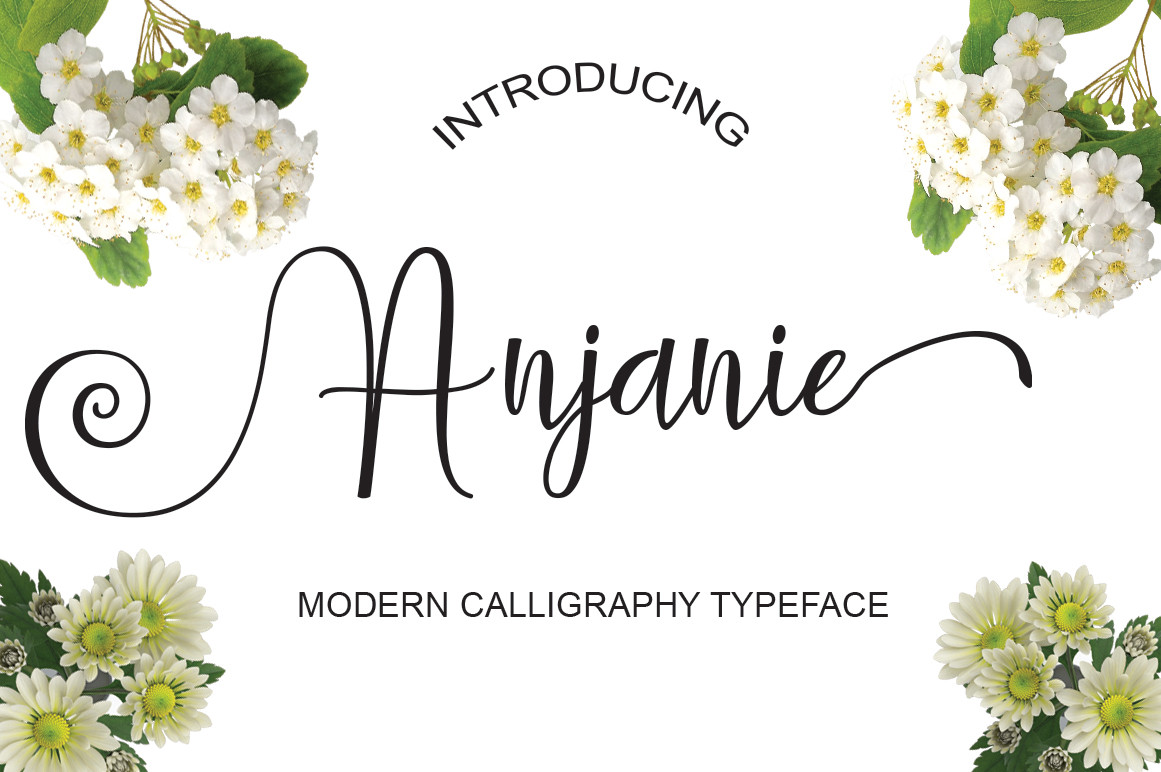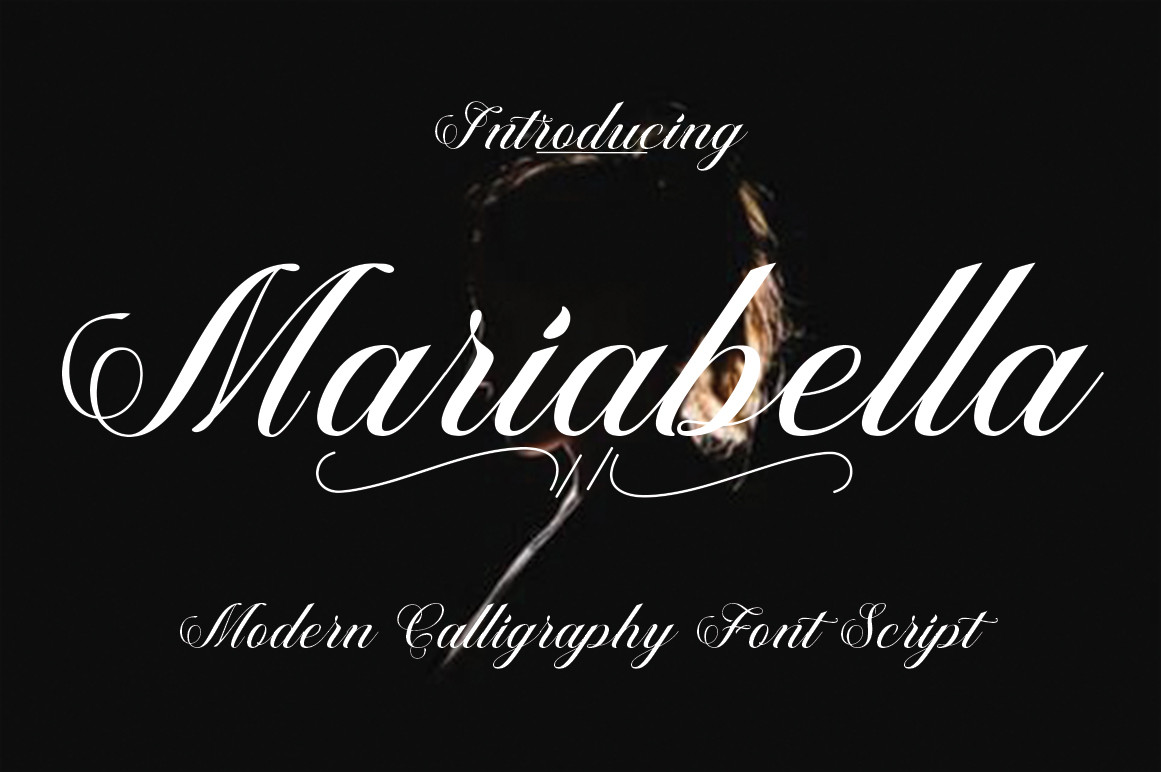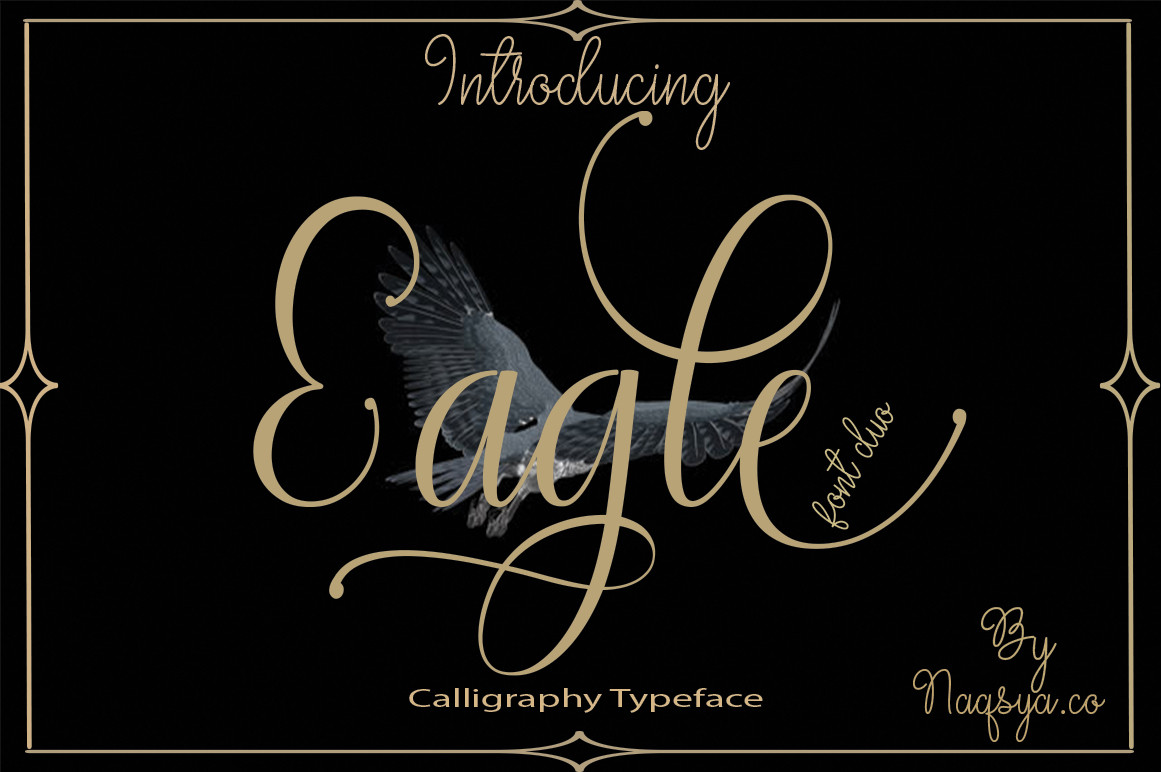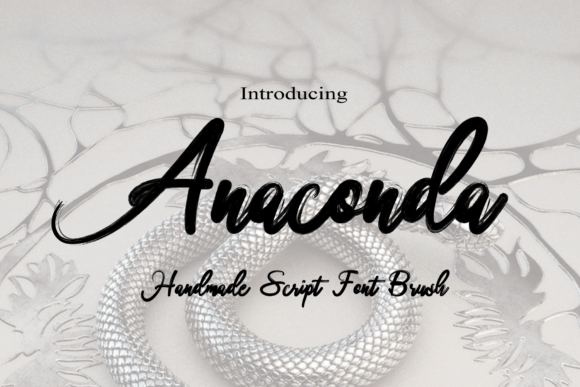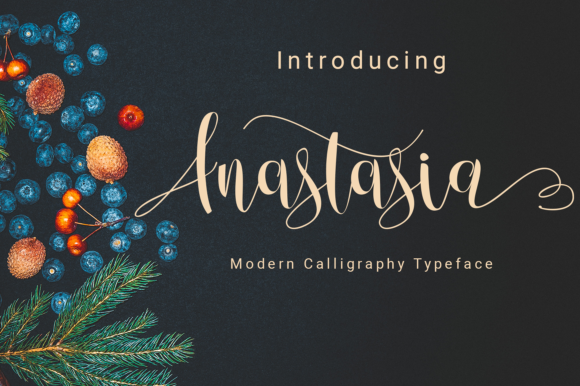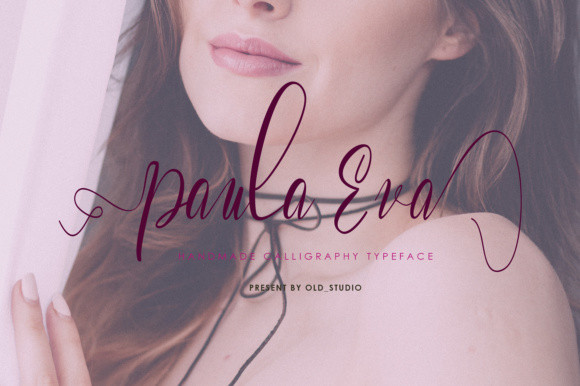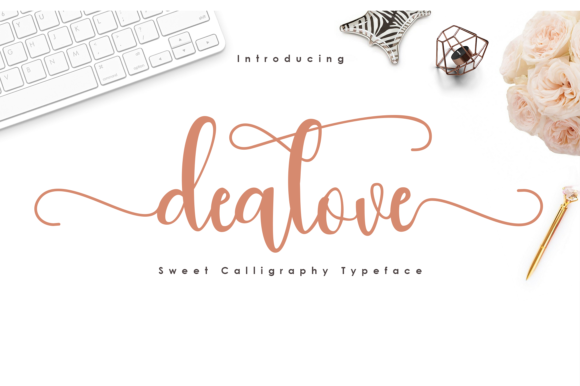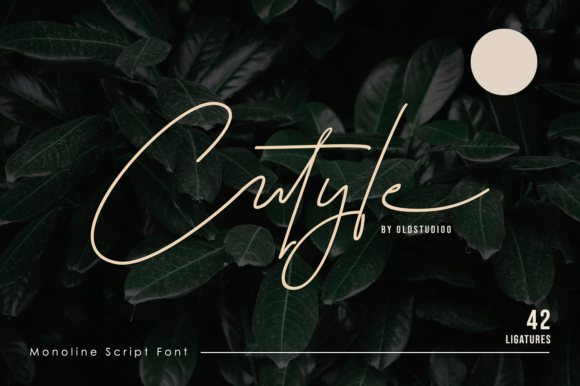
Fantastic Font Bundle
In this bundle you will get 20 Modern OTF fonts. No special software is required. They are perfect for designing your own invitation cards, digital templates, POD designs, or any other creative project.